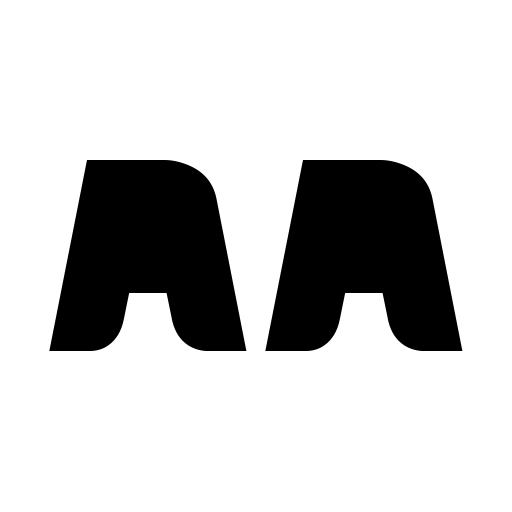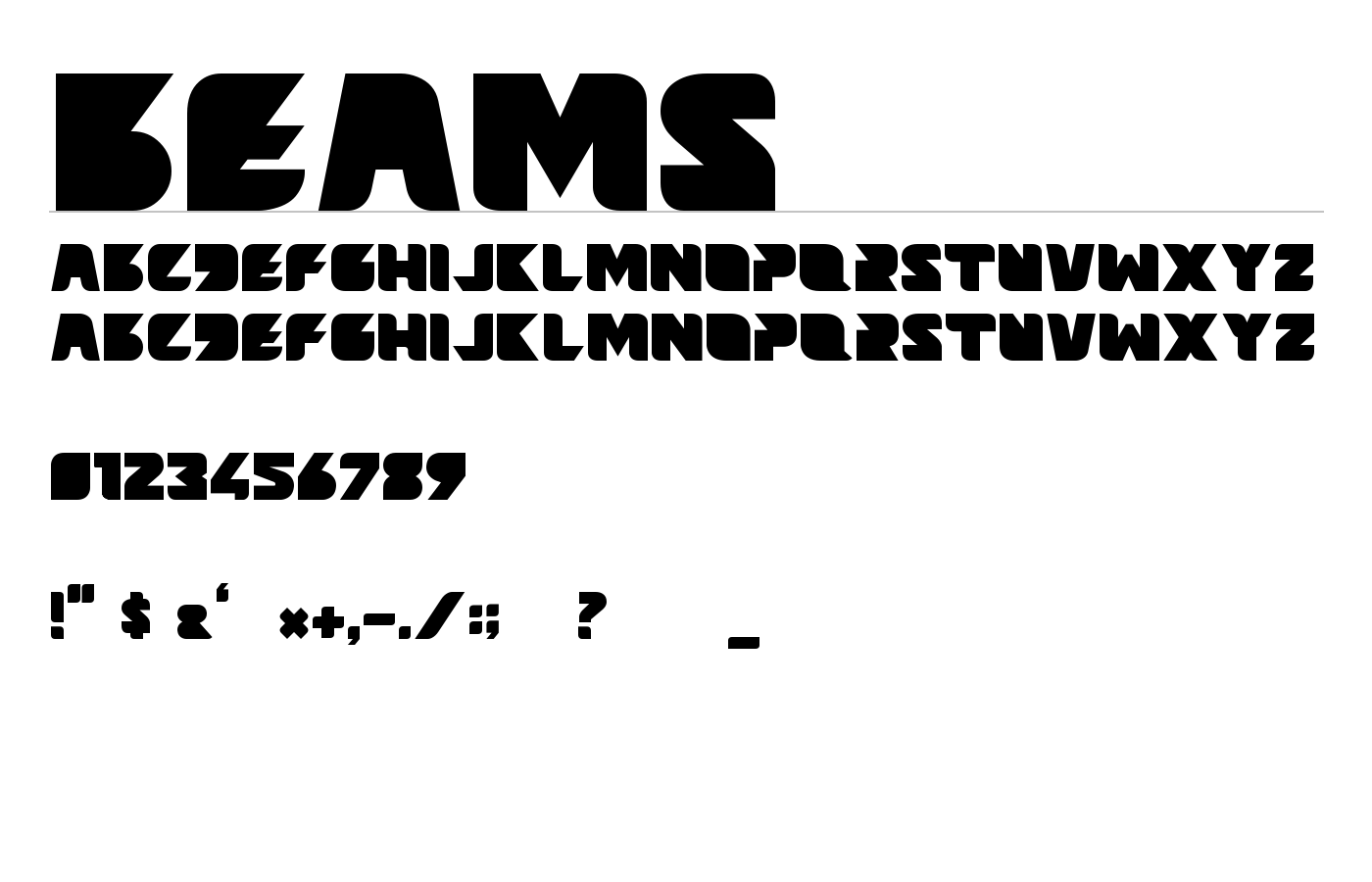
Beams Font is a bold, geometric display typeface with a strong presence and modern edge. Its thick, stylized letterforms with sharp angles and unique cutouts give it a futuristic, energetic feel, making it perfect for eye-catching headlines, logos, and creative branding. This font works best where a striking, innovative look is needed to communicate confidence and modernity.
Beams Font
About Beams Font
| Font family | Beams Font |
| Designer | Altay Dagistan |